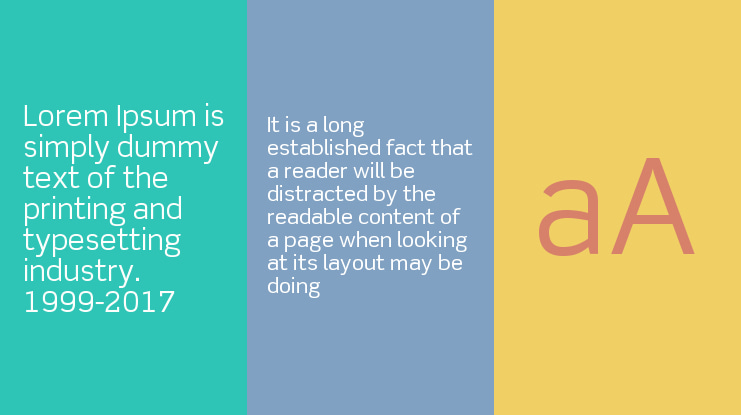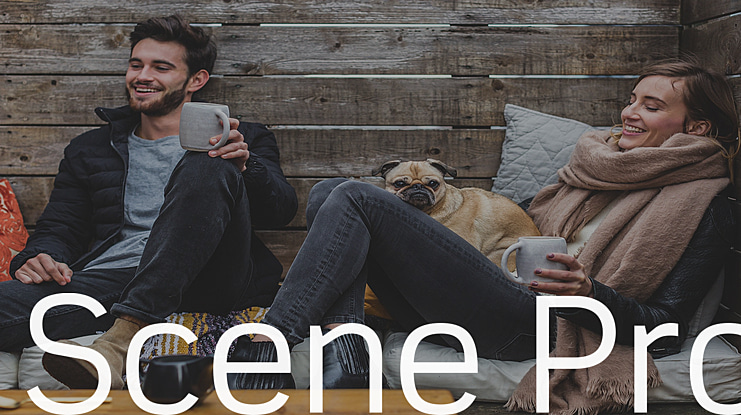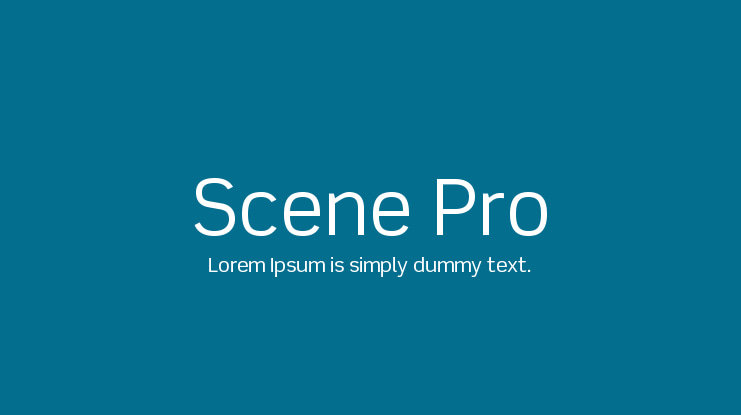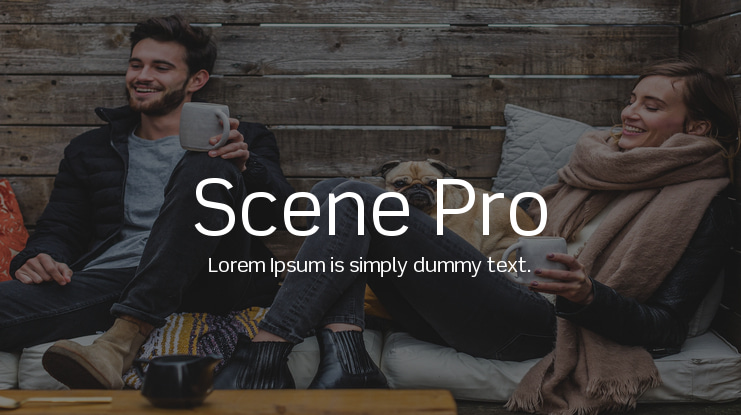
Scene Pro Font Family
Clean. Calm. Highly legible. This is the design brief Sebastian Lester set for himself when he began to create the Scene typeface family.
Work on Scene began after Lester had developed several corporate identity fonts for Monotype Imaging. He wanted to provide graphic designers and creative directors with a suite of fonts that would serve as a strong foundation for identity projects. He also wanted to incorporate what he’d learned about achieving best on-screen and print legibility. Much of the Scene family’s clarity lies in an x-height that sits comfortably between that of Helvetica and Verdana. Full-bodied counters, long ascenders and descenders, and exceptionally well-drawn letters also play their parts. Lester took special care with letter spacing and kerning to ensure optimal typographic color at any size.
Scene is the result of two years of after-hours and weekend work. “It started off as a part-time project,” says Lester, “but ended up as virtually a second full-time job.” The completed family is six weights with complementary italic designs. In addition are included a set of “semi-sans” characters that introduce more expressive word rhythms into headlines and blocks of copy. In addition, aligning and old style numerals were drawn for all six weights.
Newly released is Scene Pro, in OpenType format. Now graphic communicators can work with this versatile design while taking advantage of OpenType’s capabilities, including the automatic insertion of old style figures, ligatures and small caps.
The new Scene Pro fonts offer an extended character set supporting most Central European and many Eastern European languages, in addition to English.